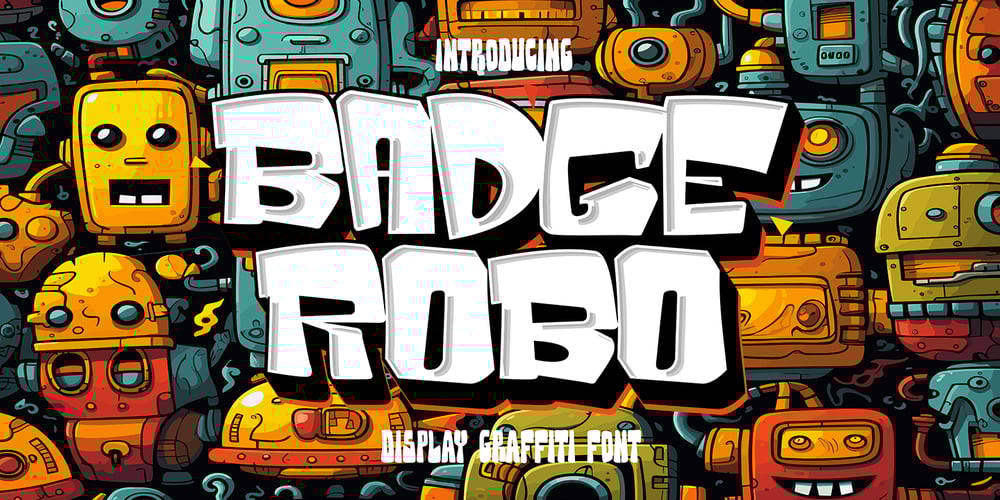
Badge Robo 3d Display Graffiti Font Family was designed by Sipanji and published by Sipanji21. Badge Robo 3d Display Graffiti contains 3 styles and family package options. “Badge Robo” is a 3D display graffiti font with very bold and impactful characters. Fonts like this are often used in designs where you want to create a bold, attention-grabbing, and three-dimensional text effect. This style can be seen in various design applications, including street art, posters, or any project where you want your text to stand out prominently.With “Badge Robo,” you can create designs that feature powerful and visually striking typography. The bold and 3D nature of this font can make your text appear dynamic and attention-grabbing, helping your design make a strong impact.